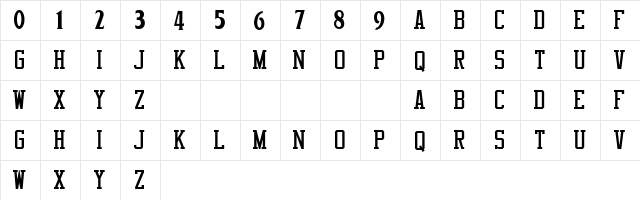
NBA Warriors Regular
Design Context for NBA Warriors Typeface
NBA Warriors offers clean, dependable letterforms without strong stylistic allegiance, making it a practical choice for designers who need flexibility.